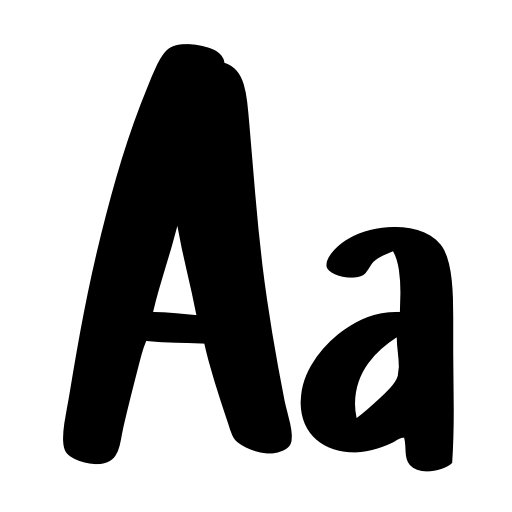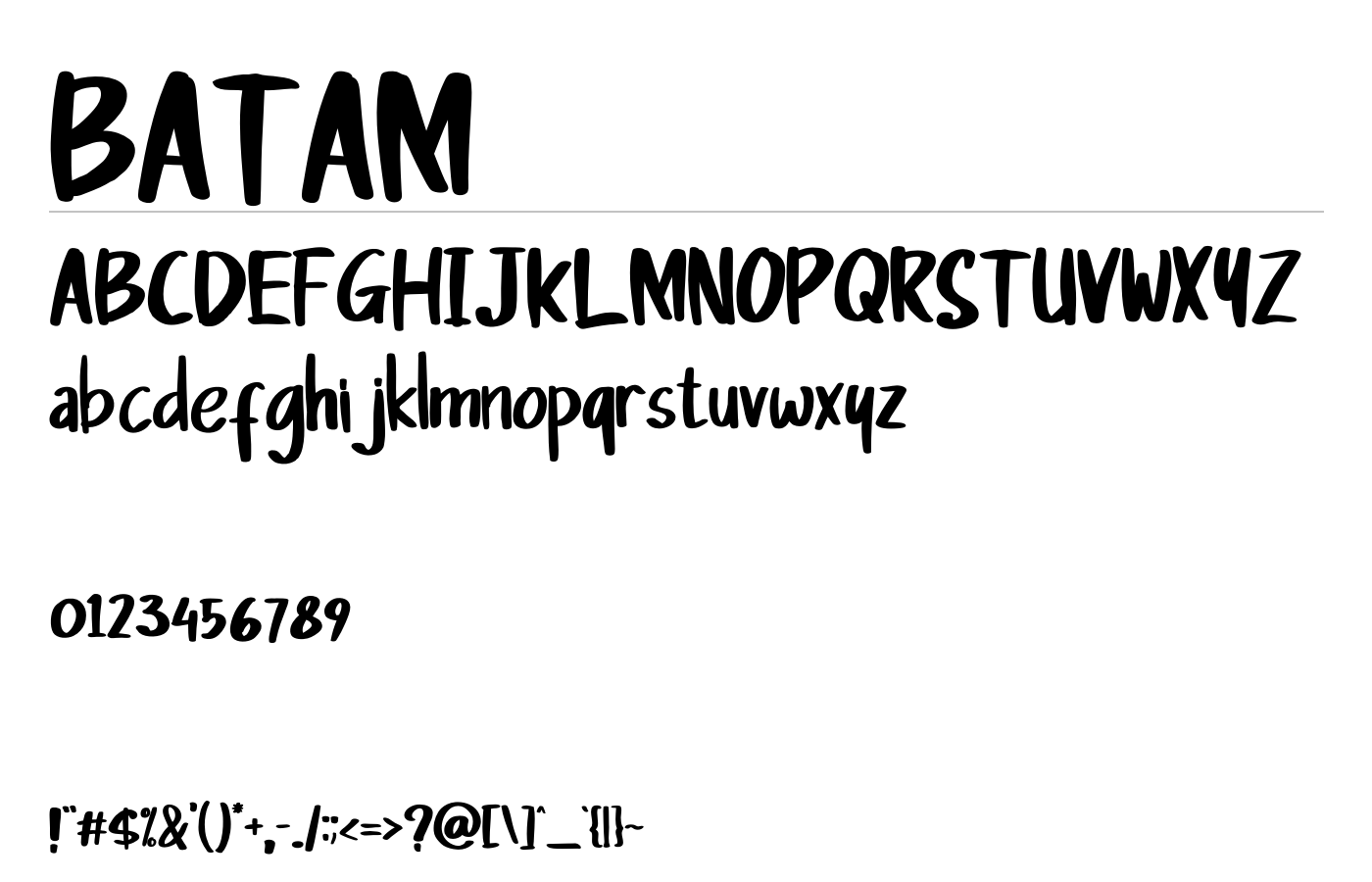
BATAM is a bold and playful handwritten sans serif font with a casual, organic feel. Its tall, slightly condensed letterforms and varied stroke widths create an energetic and friendly personality, making it perfect for creative projects, informal branding, and eye-catching headlines. This font works best where a lively, approachable style is needed to convey warmth and originality.
BATAM Font
About BATAM Font
| Font family | BATAM Font |
| Designer | Moch Zaenal Abidin |